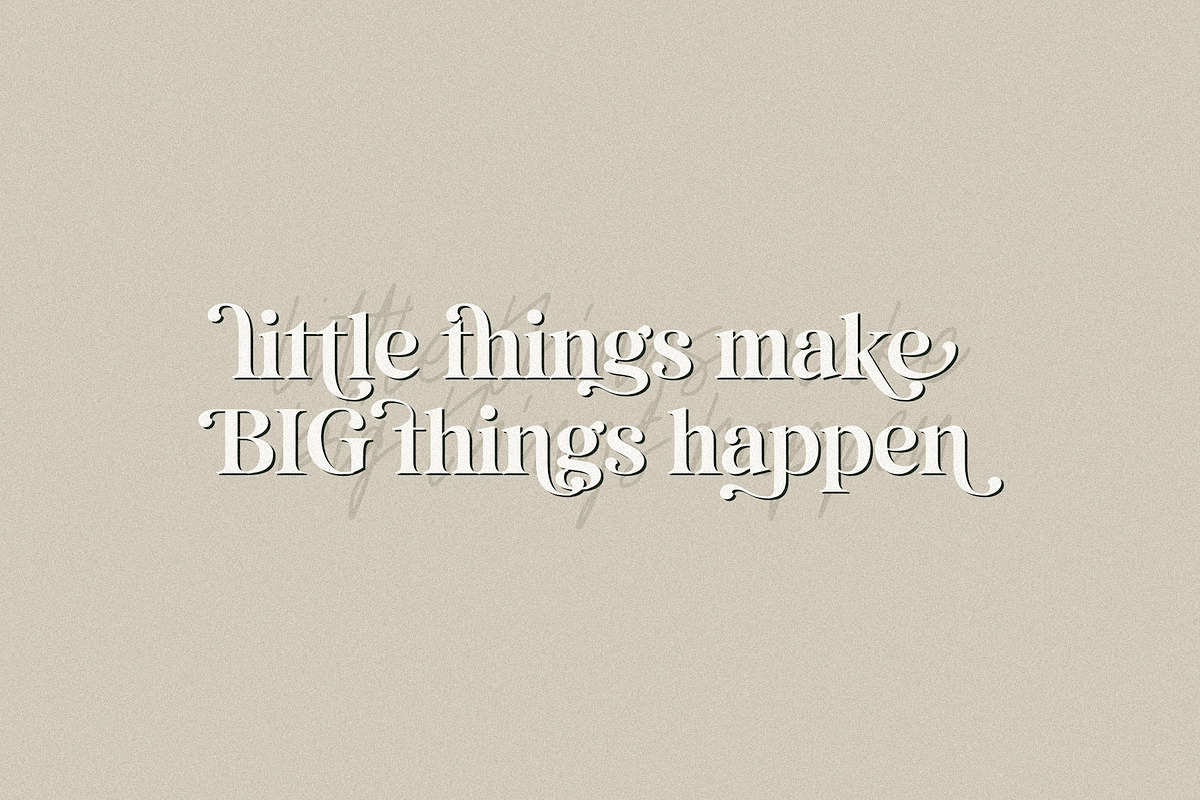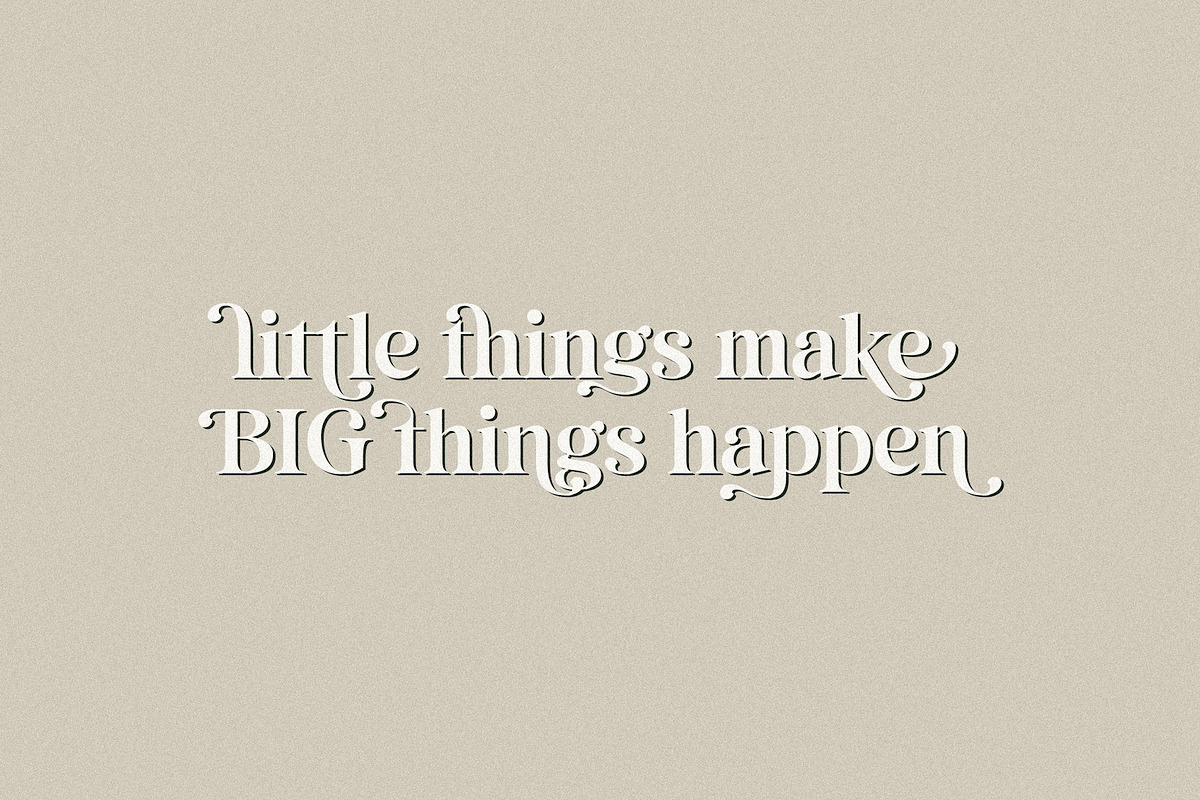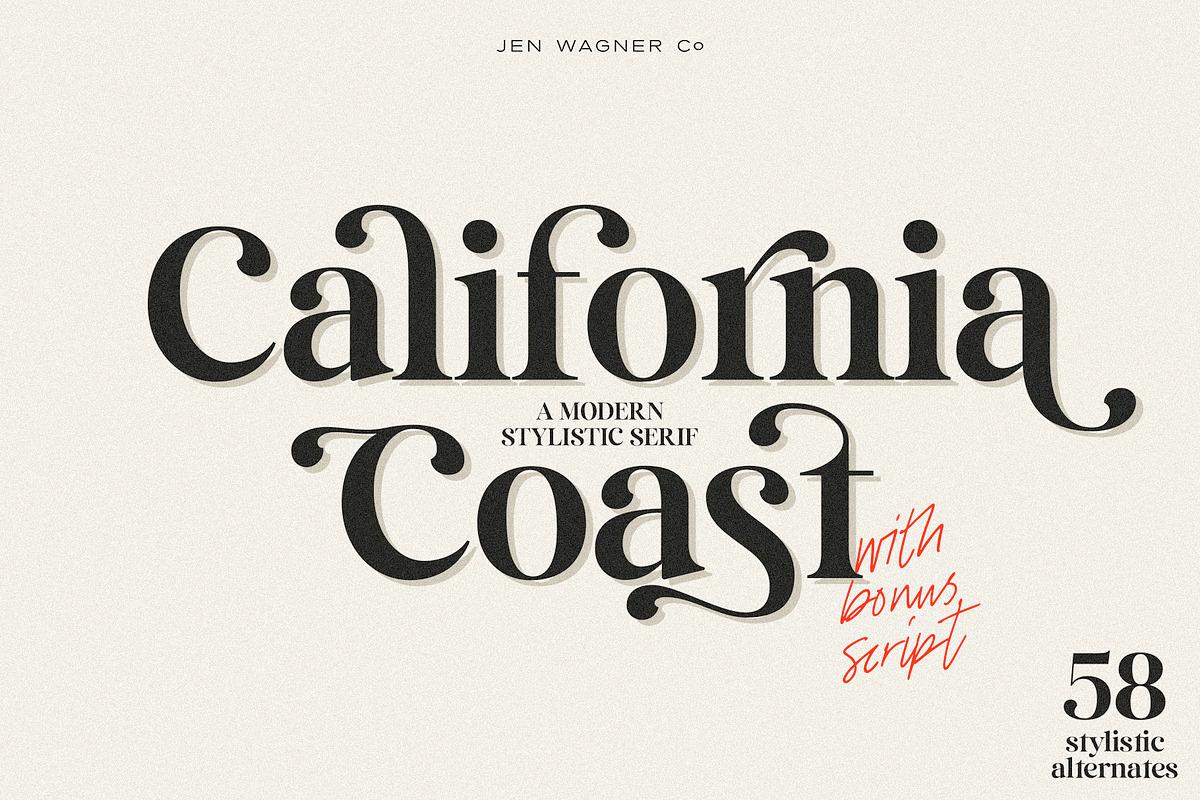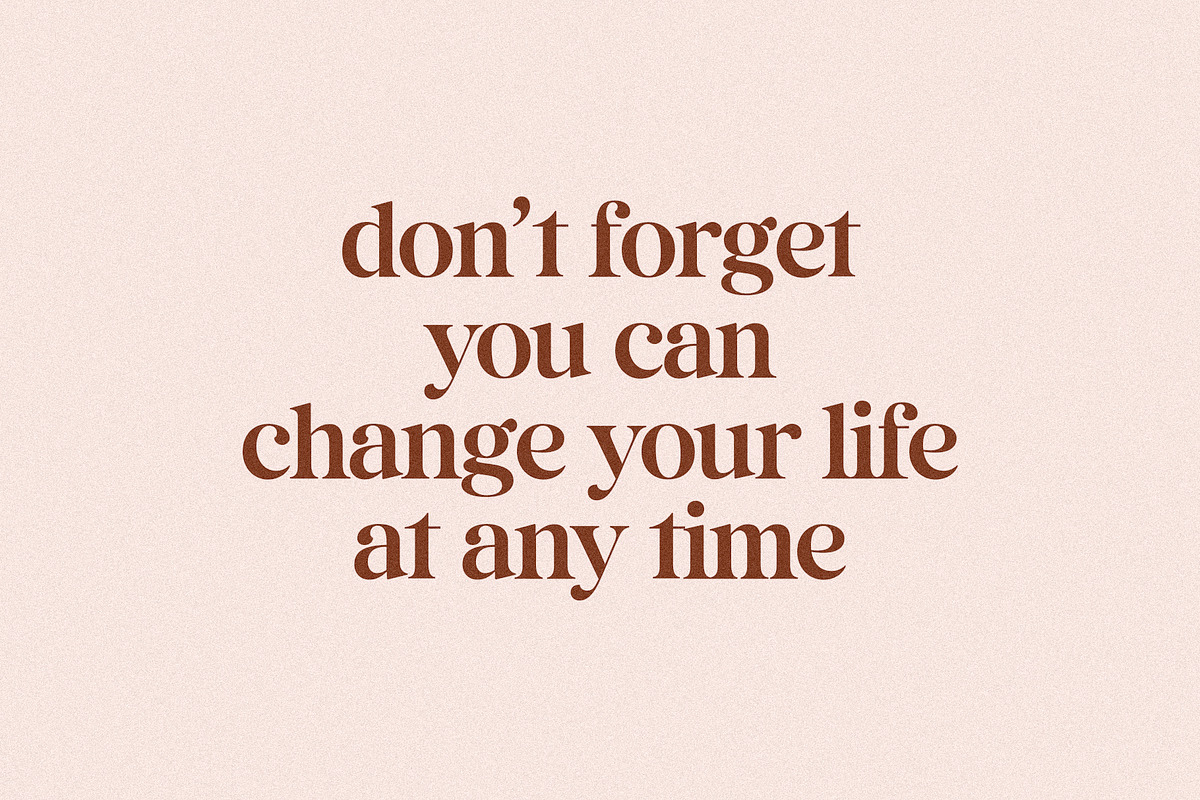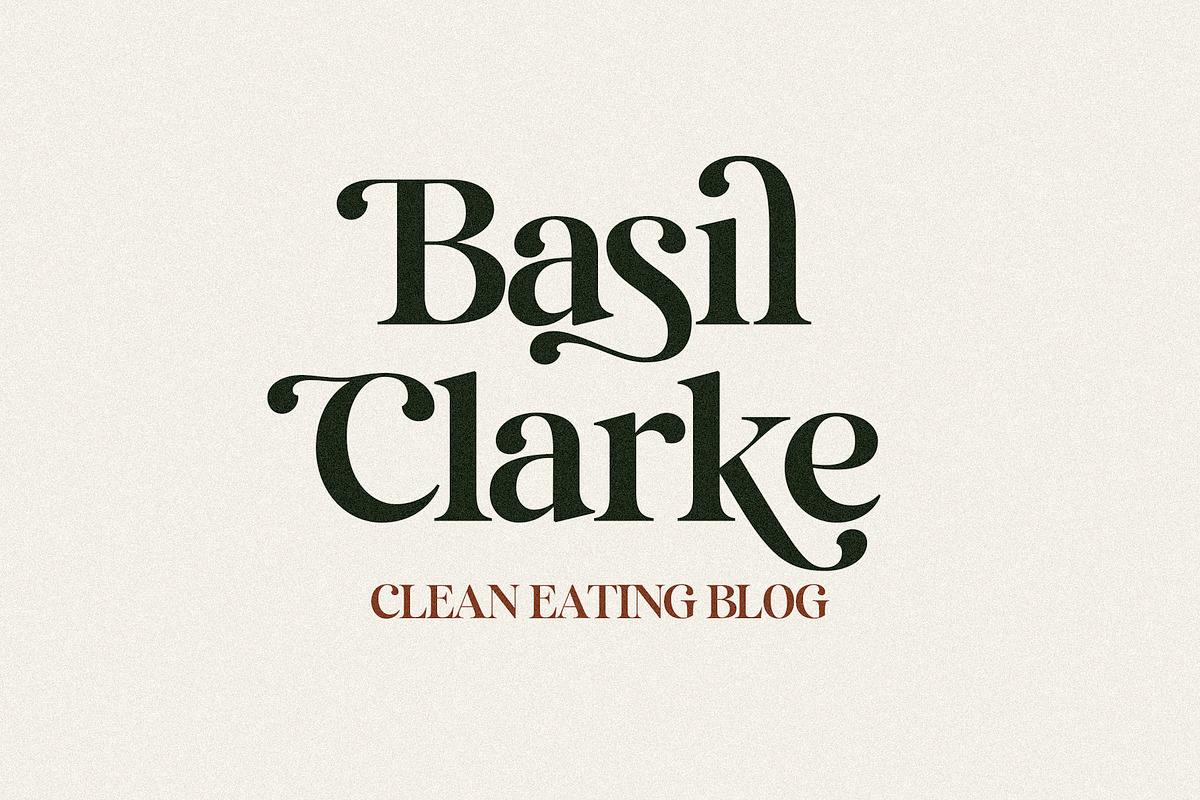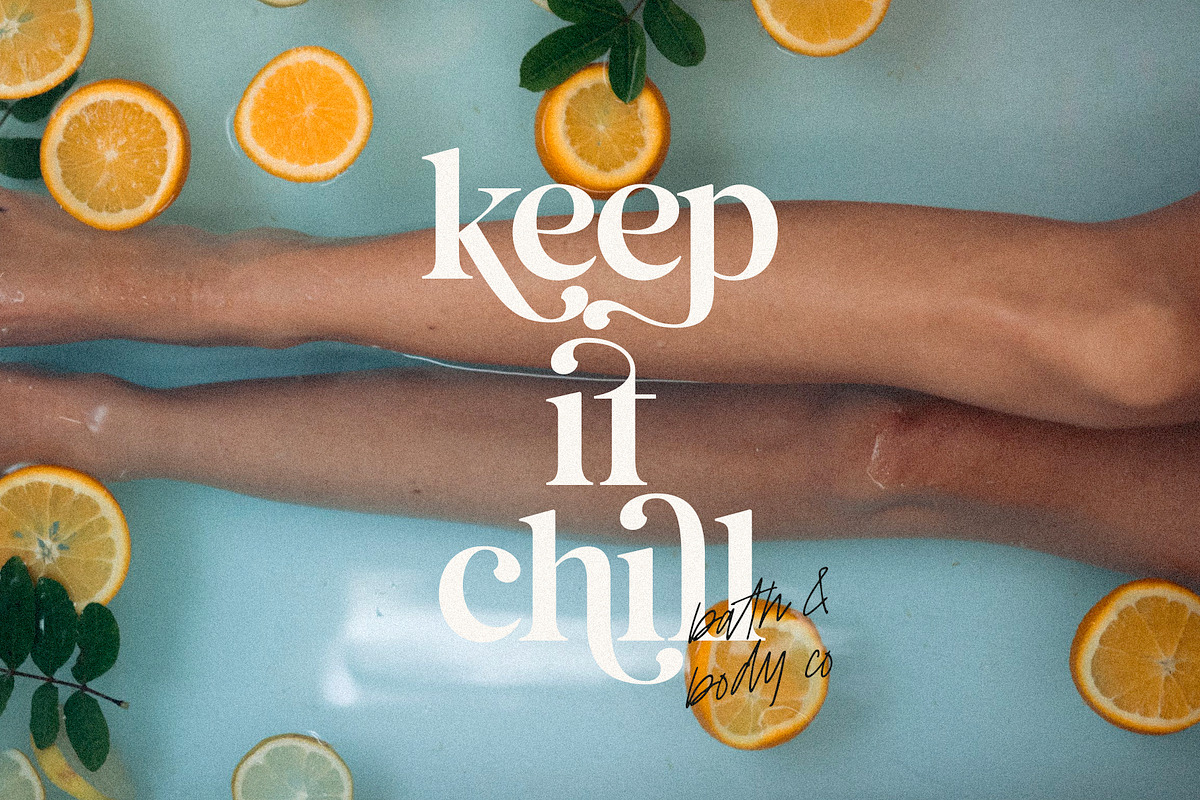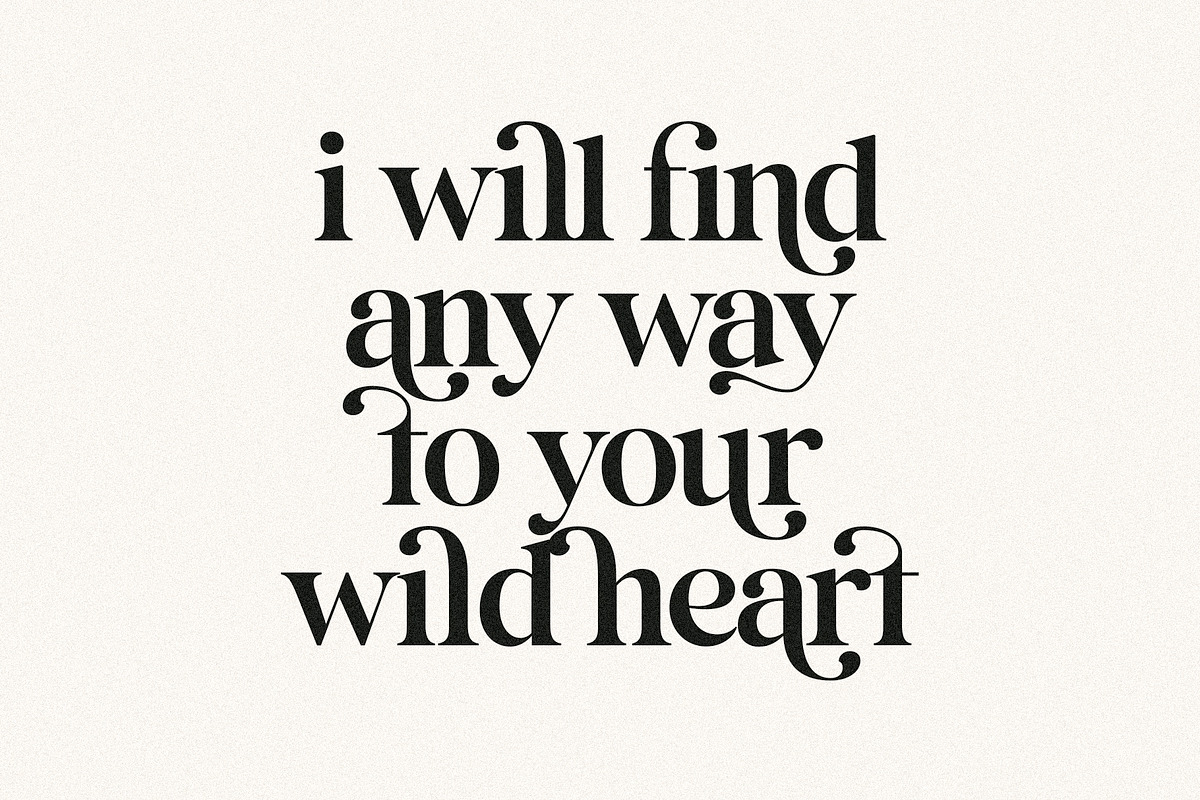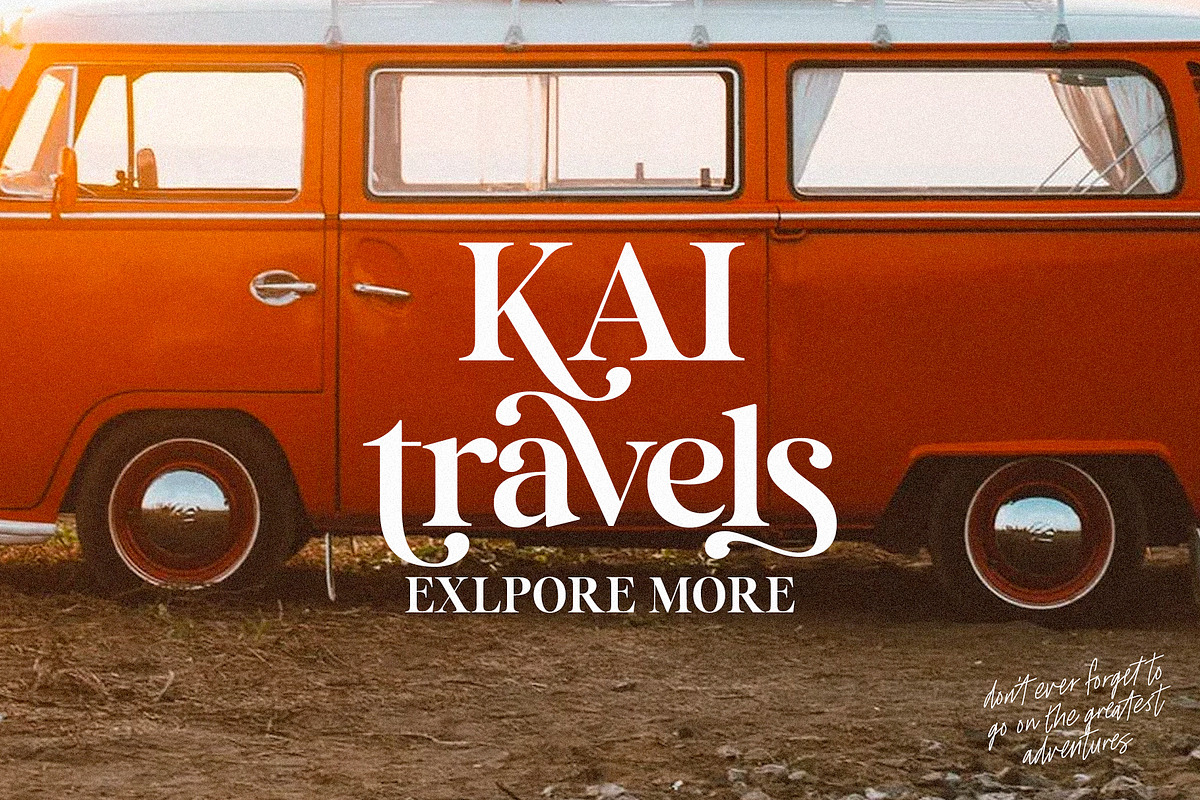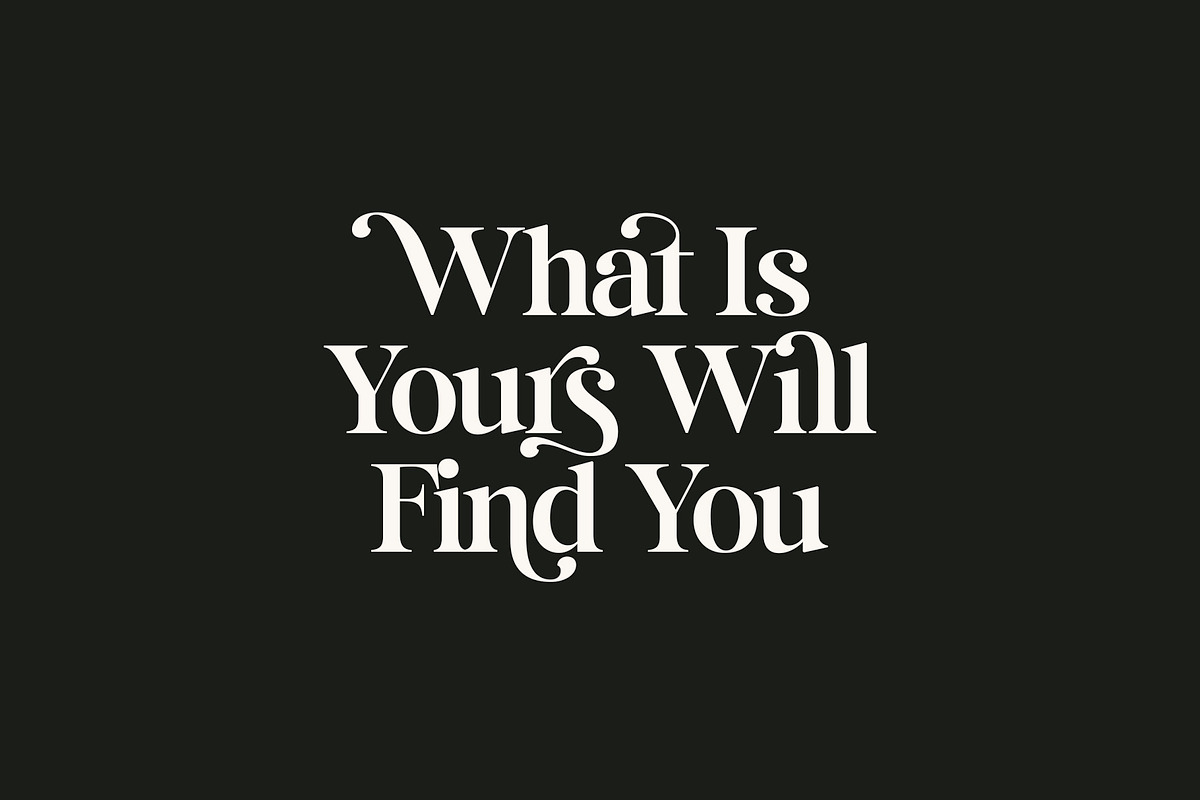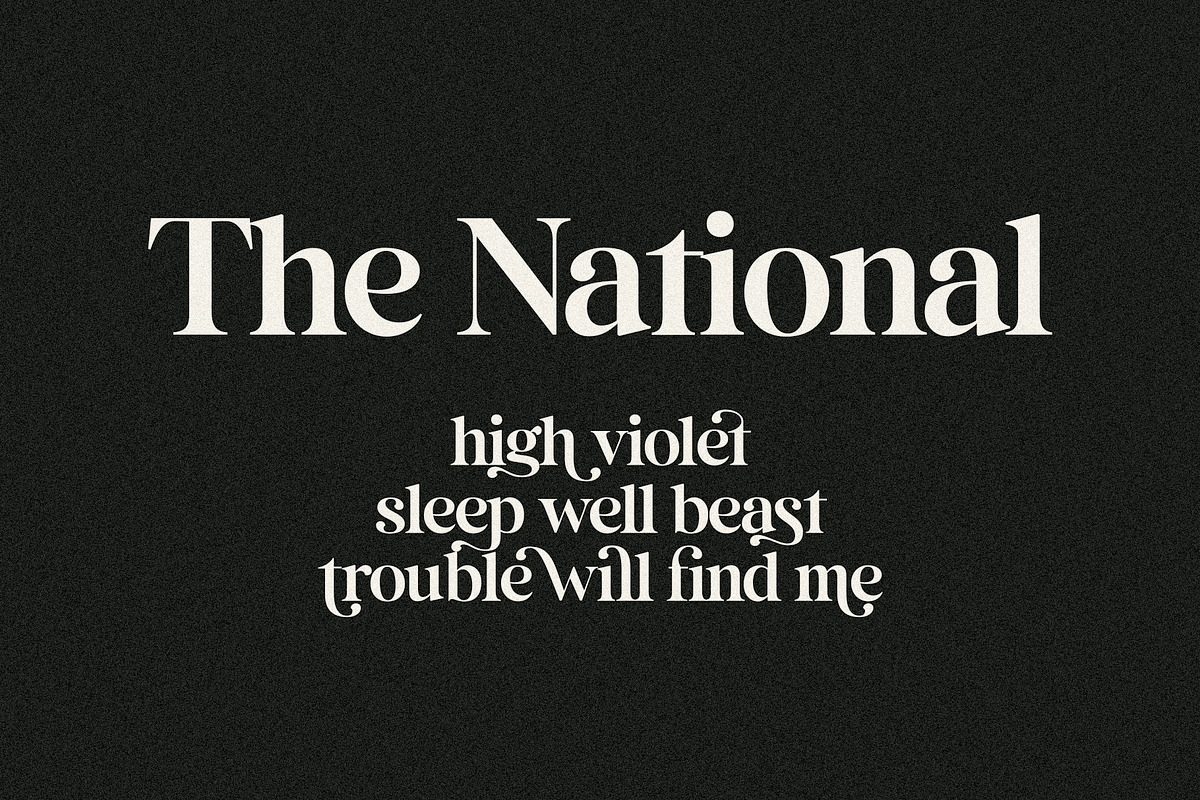
California Coast | Modern Serif
Introducing California Coast – a brand new serif with a bonus script for a fun built-in pairing!
California Coast is a classy, bold upper and lowercase typeface that looks incredible in both large and small settings. Best used as a display for headings and logos, California Coast's sharp curves and decorative alternates give any project an extra touch of class.
There are also alternates available for every letter that give provide some extra curves and flair for creating beautiful logos and quotes (available via the special characters panel; see this article for help accessing them: https://www.macworld.com/article/3052388/how-to-access-advanced-opentype-features-in-a-variety-of-mac-apps.html )
You'll also get Ostuni script as a bonus – this has been a fun script to use as an extra textural layer for quotes (see the 8th sample image) as well as for logos, and I wanted you to have access to such a pretty pair!
- Alternates for every uppercase and lowercase letter (58 to be exact!) – available via the special characters panel (see this article for help accessing them: https://www.macworld.com/article/3052388/how-to-access-advanced-opentype-features-in-a-variety-of-mac-apps.html
- Ligatures for fi, ri, it, il